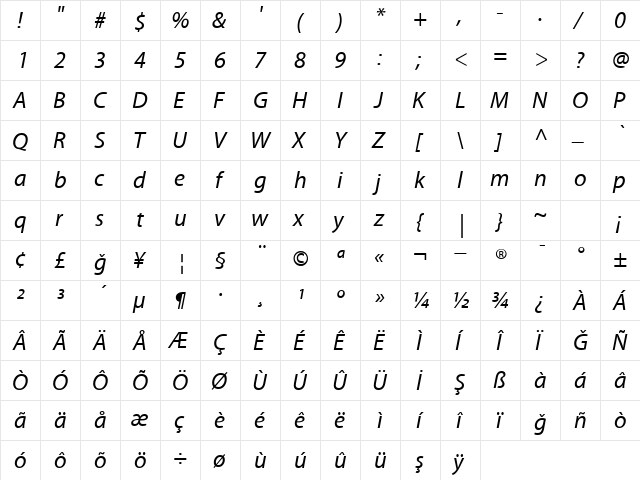
STVMyriad NormalItalic Font Preview
STVMyriad NormalItalic
STVMyriad NormalItalic Font Details
| Style | NormalItalic |
Design Context for STVMyriad Typeface
STVMyriad is a composed and adaptable typeface that performs quietly and consistently across a wide range of design contexts. The dynamic lean of this cut emphasises speed and emphasis in any layout.
Pro Tip: Try STVMyriad for annotation and caption copy alongside an upright companion — the contrast in angle creates a dynamic but ordered typographic system.